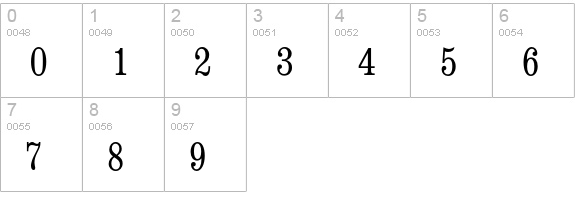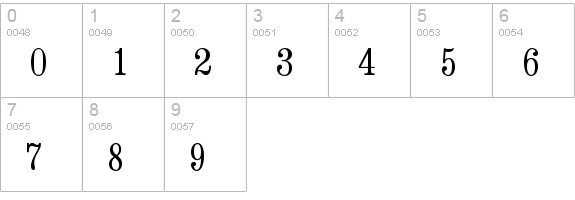
Consort RR LightCondensed is a sleek and elegant font that exudes sophistication and modernity. Its condensed style makes it perfect for projects where space is limited, yet the need for a refined and polished look remains paramount. The clean lines and subtle curves of this font lend a sense of professionalism to any design it graces, making it ideal for a wide range of applications. Best of all, Consort RR LightCondensed is available for free download at FontsMarket.com, where you can access this high-quality font without any cost. Whether you're working on a branding project, creating invitations, or designing a website, Consort RR LightCondensed is sure to elevate your work with its timeless appeal and versatility. Download it today and add a touch of sophistication to your projects effortlessly.